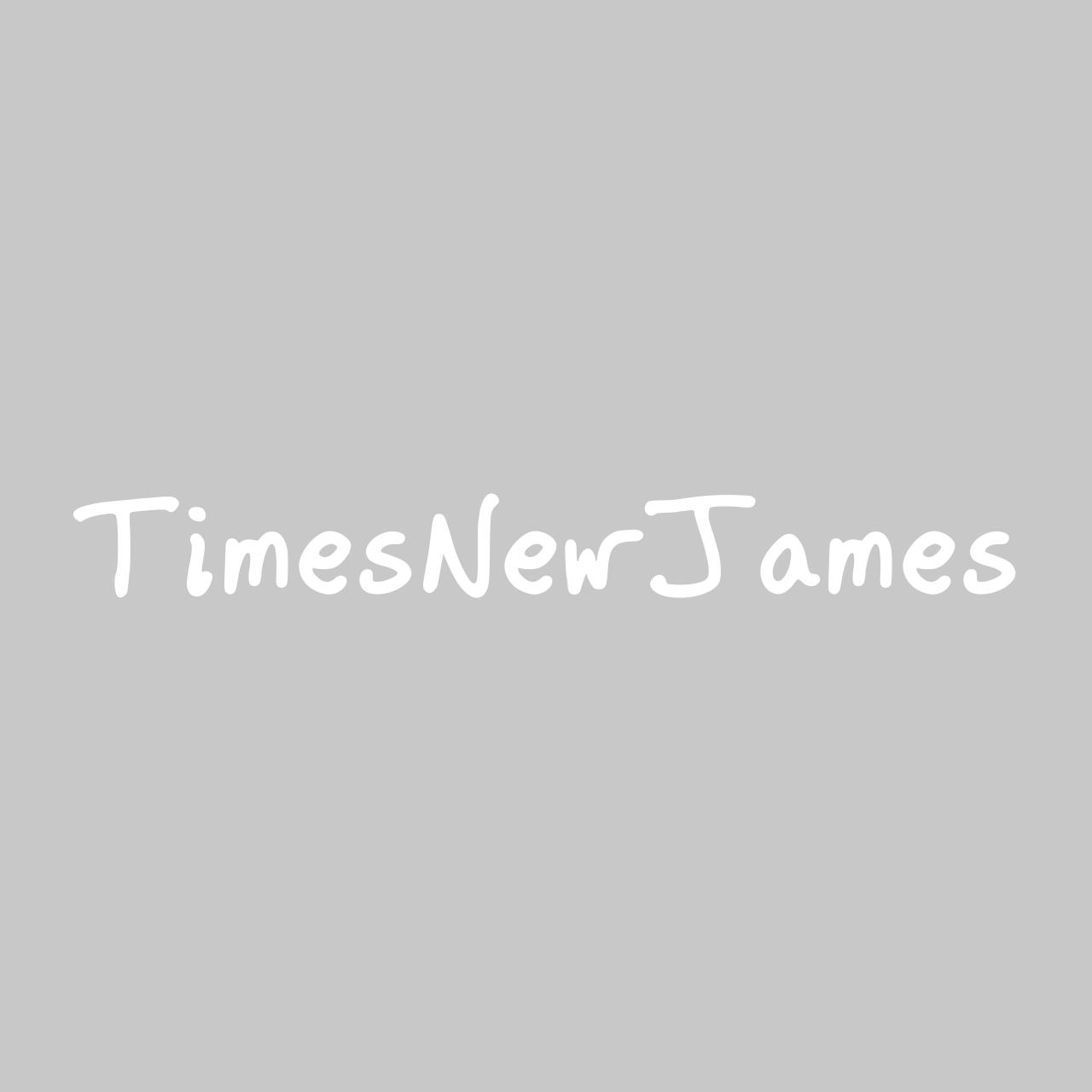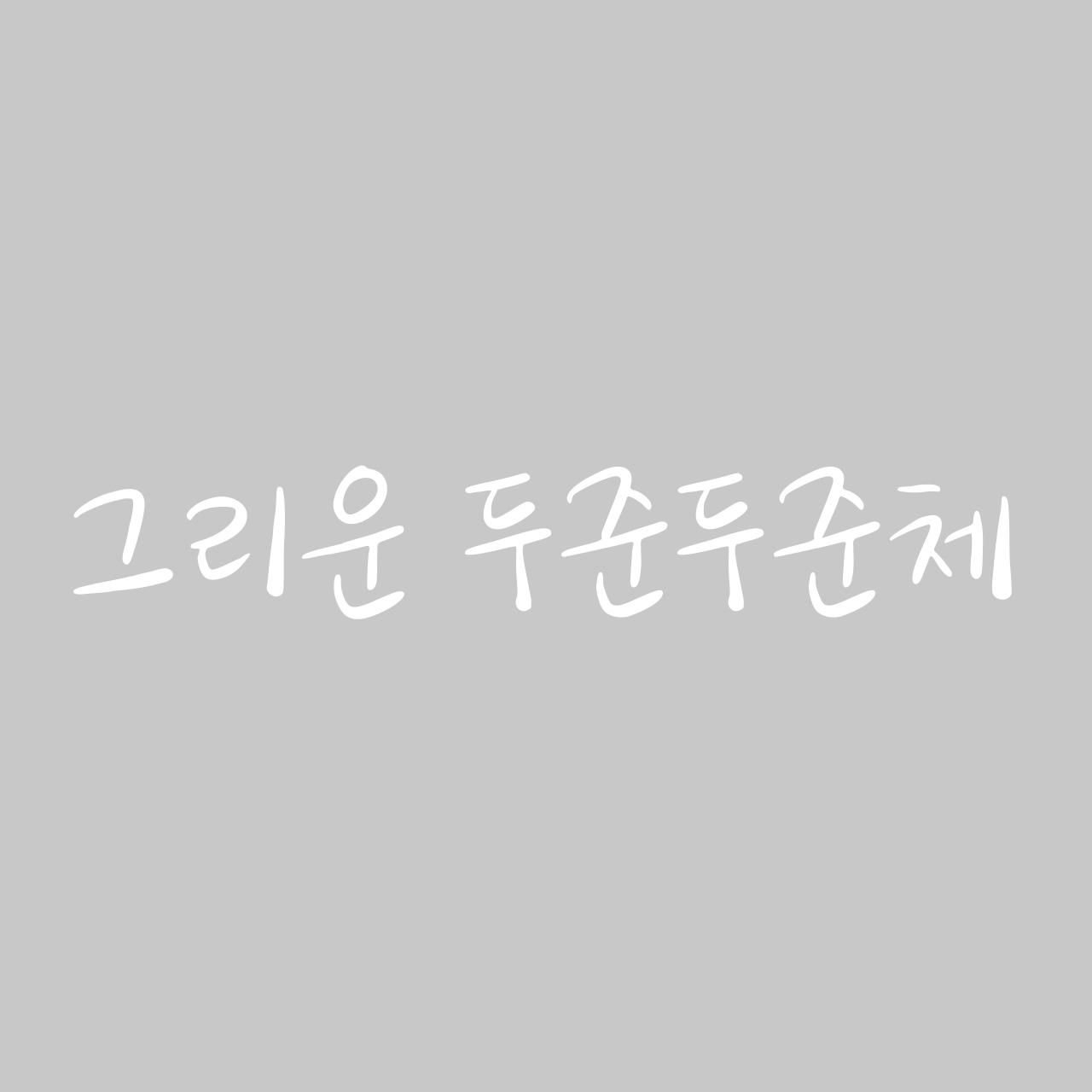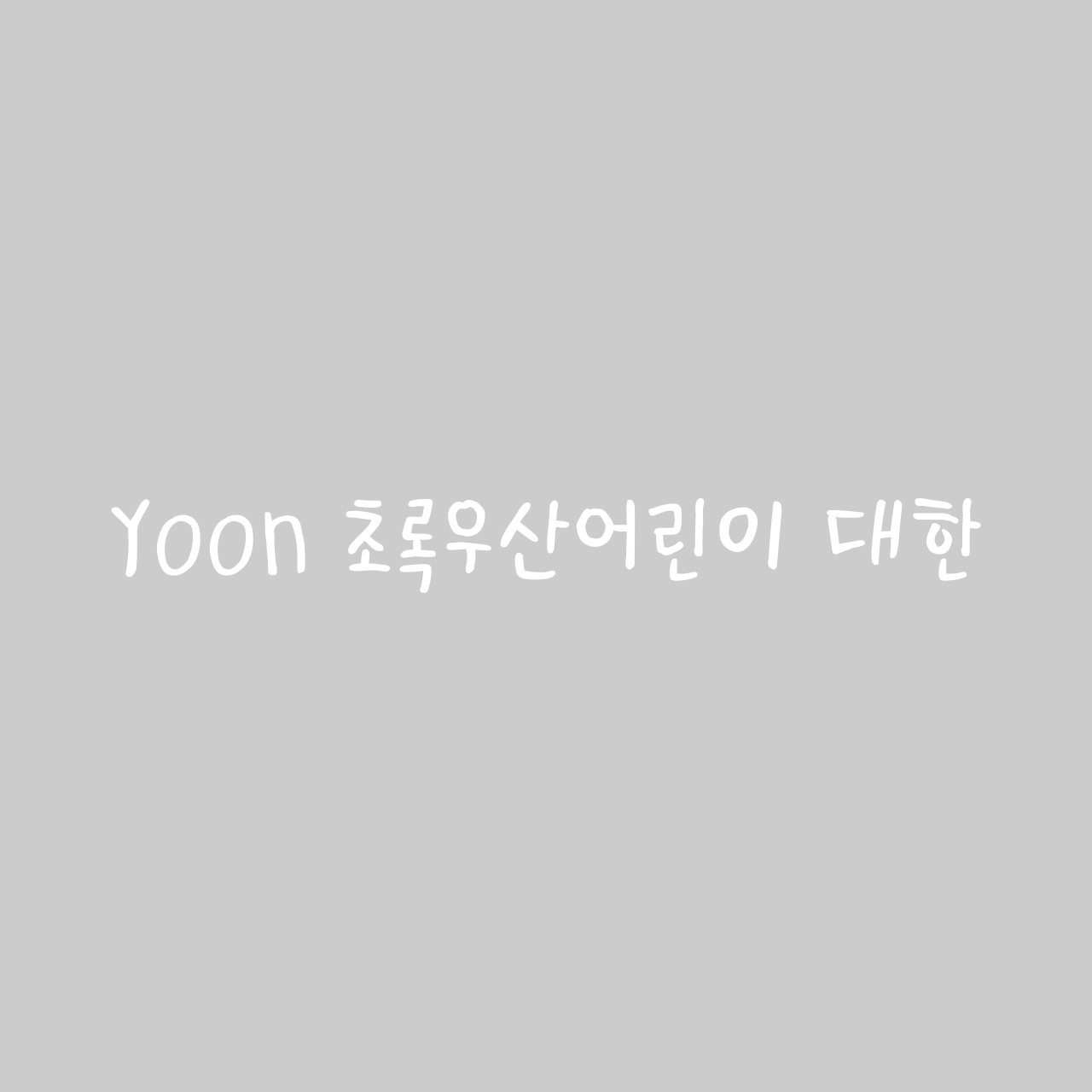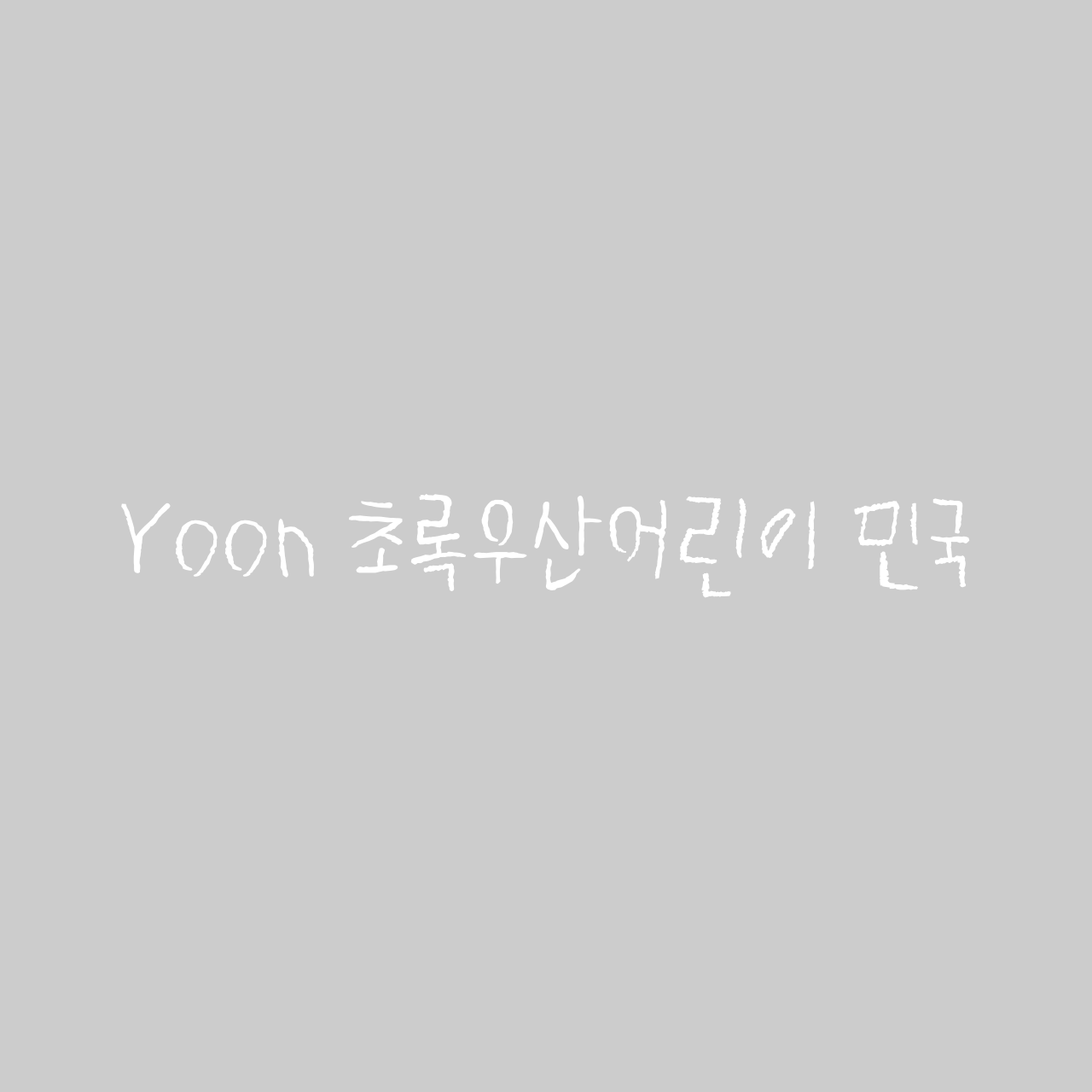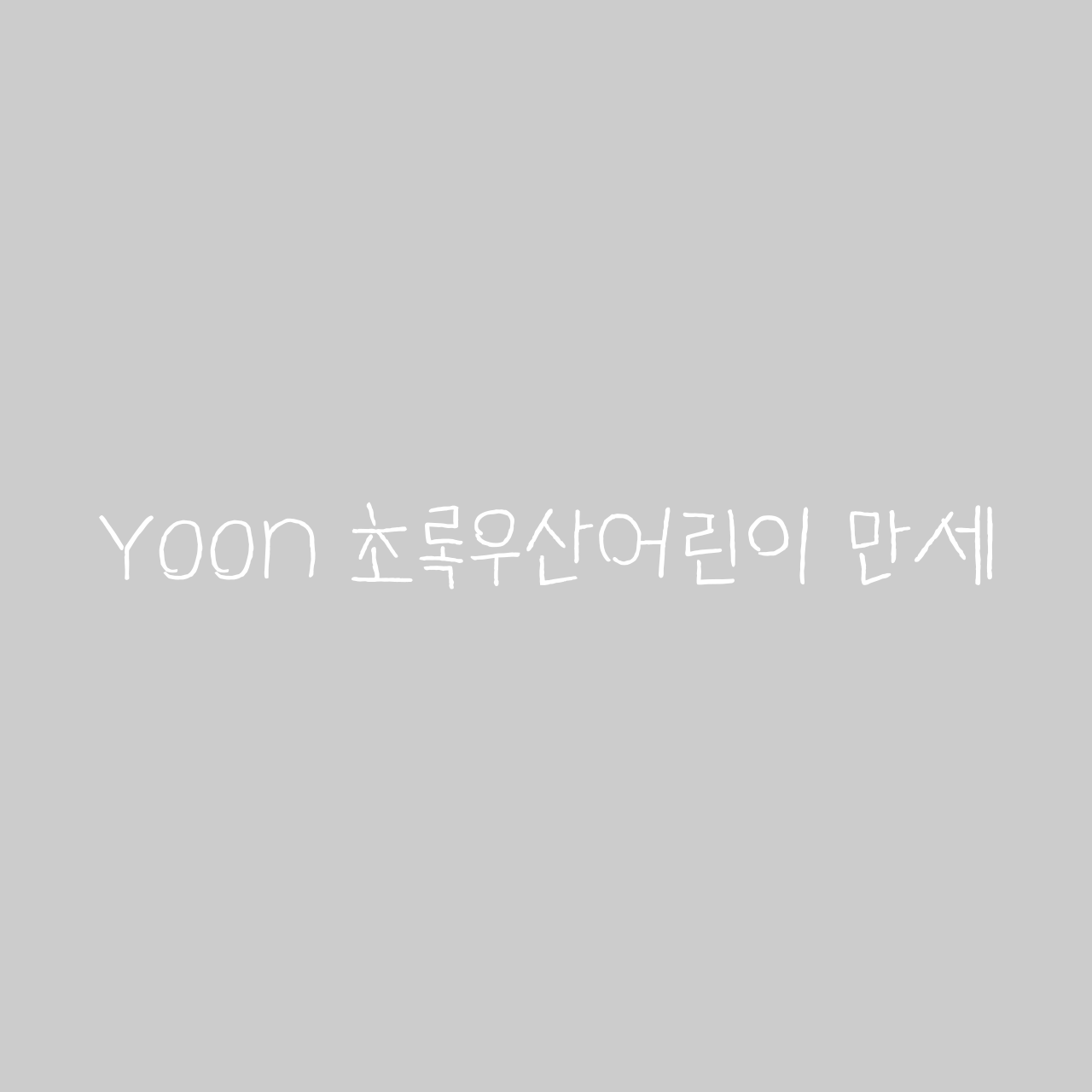
The first font in our lineup is a free typeface based on handwritten letters that Yoon Du-jun of HIGHLIGHT wrote himself for his fans. Its loose, natural rhythm captures the charm of handwriting, making it a great fit for everyday vlog captions or expressive short-form titles. You can also watch how Yoon Du-jun’s sincere, down-to-earth personality comes through in the letters in the making process on YouTube.
Next up is a handwriting font created by James Naile, the KIA Tigers’ ace international pitcher, who took on the challenge of making a typeface from his own writing. Drawing on the Korean he had steadily learned, he carefully wrote each character by hand. His handwritten Hangul was then transformed into a polished digital font through a fascinating process.
These free fonts are based on the actual handwriting of actor Song Il-kook’s triplets—DaeHan, MinGuk, and ManSeh—
created when they took part in a sharing campaign by ChildFund Korea.
Their handwriting was carefully digitized in collaboration with YoonDesign Group.
Each font preserves the distinct personality and childlike spirit of the three siblings.
Rather than following uniform letterforms, the designs retain the charmingly uneven quality
unique to children’s handwriting.
They work especially well for family and parenting content, warmhearted social posts, or captions that convey a caring message.